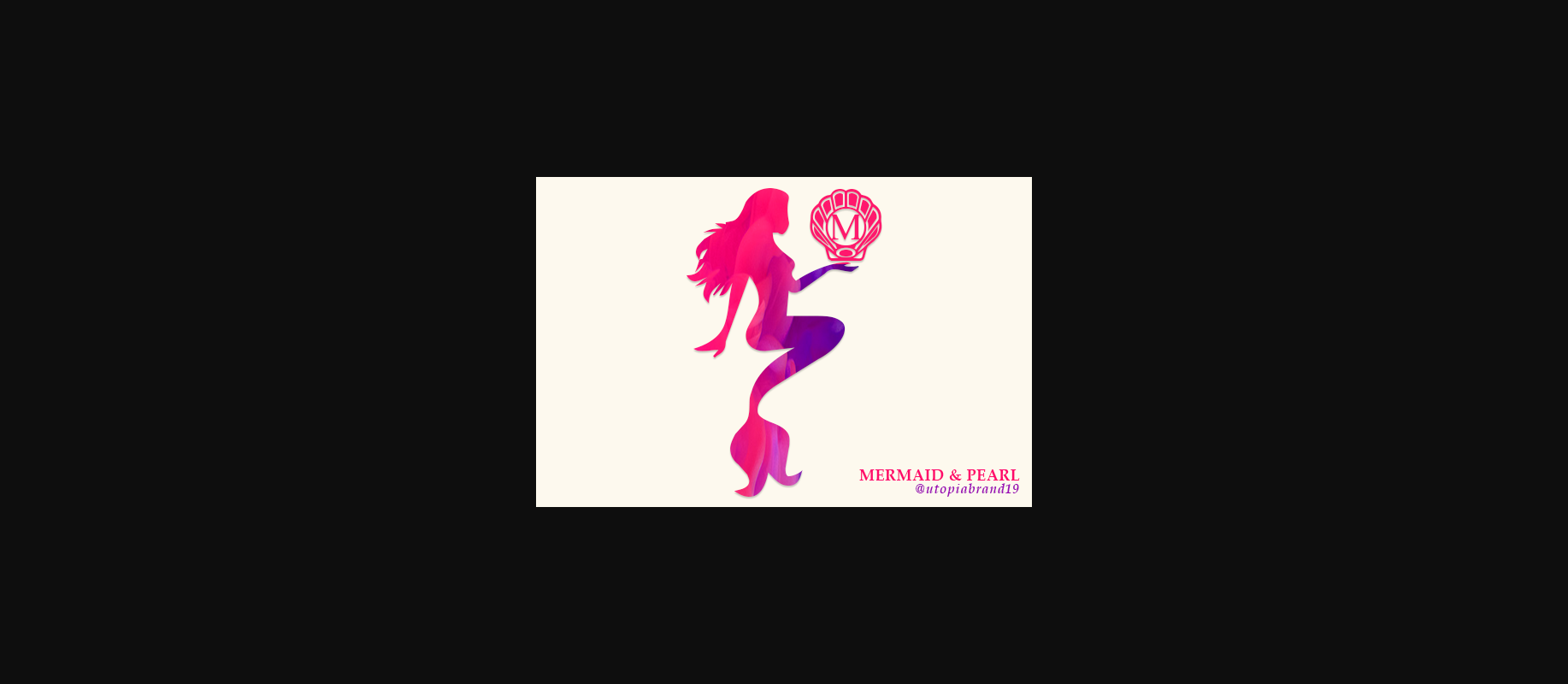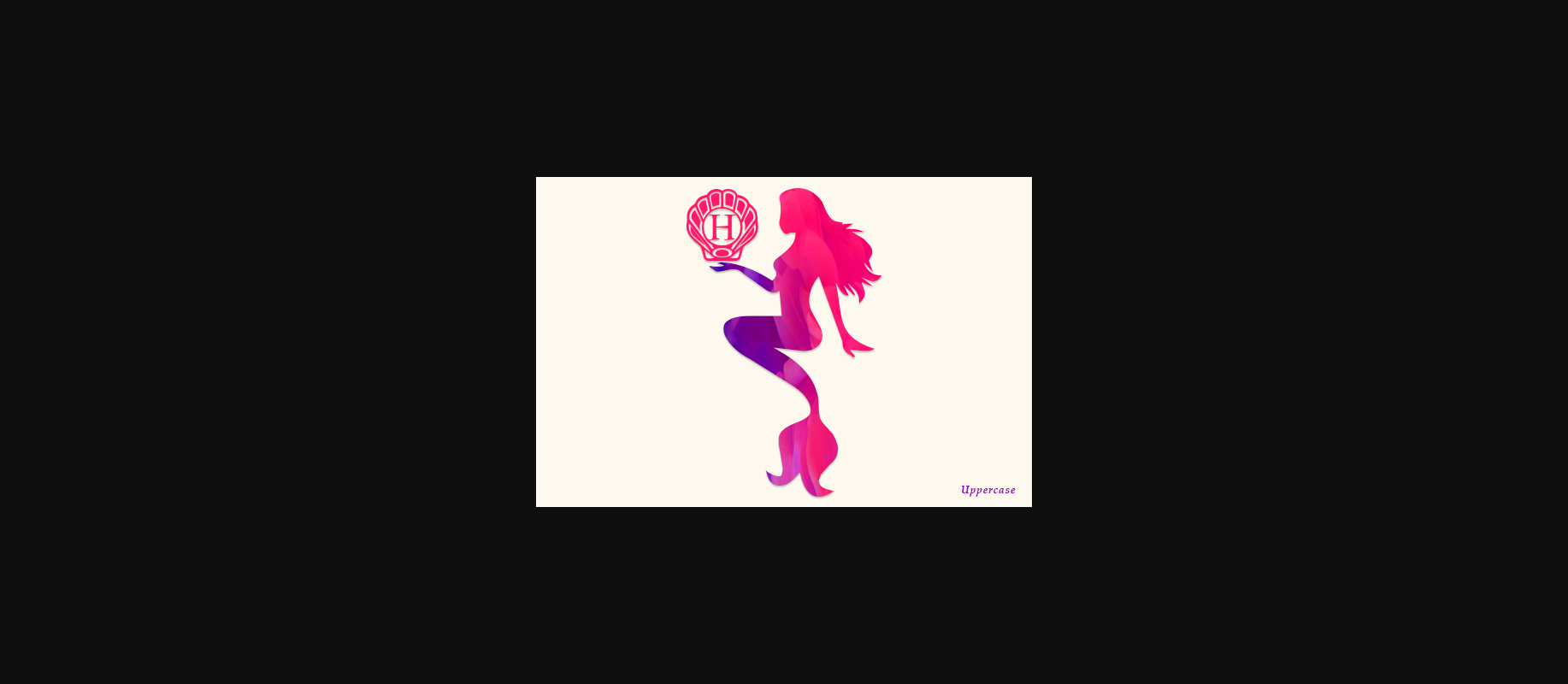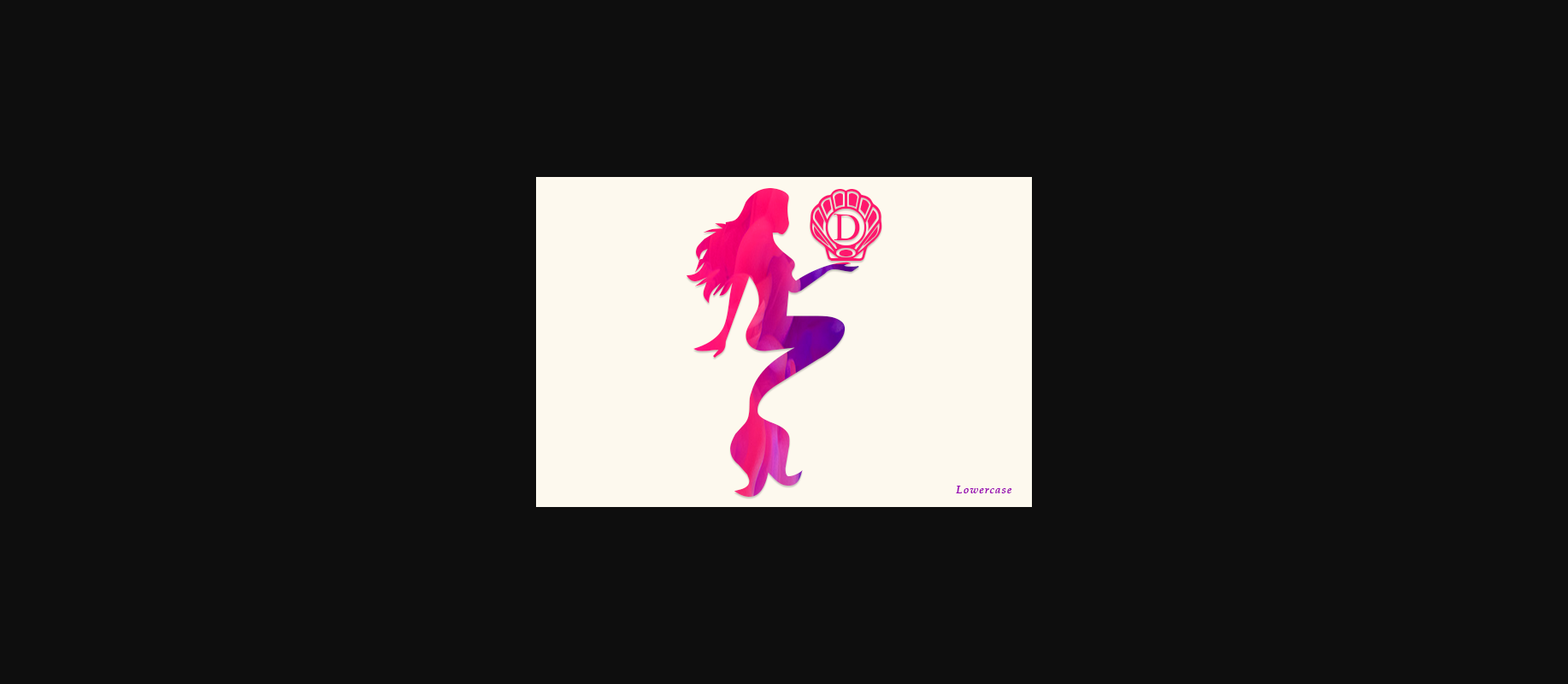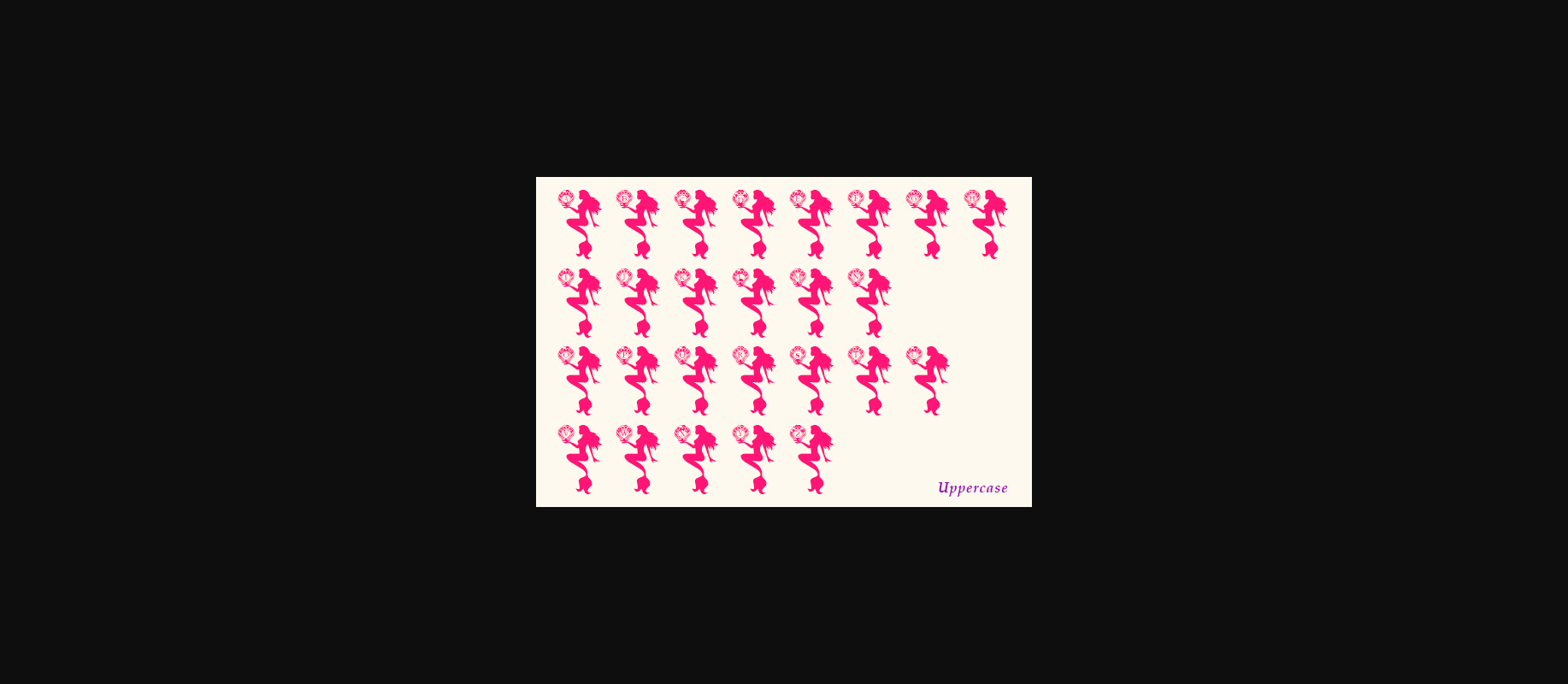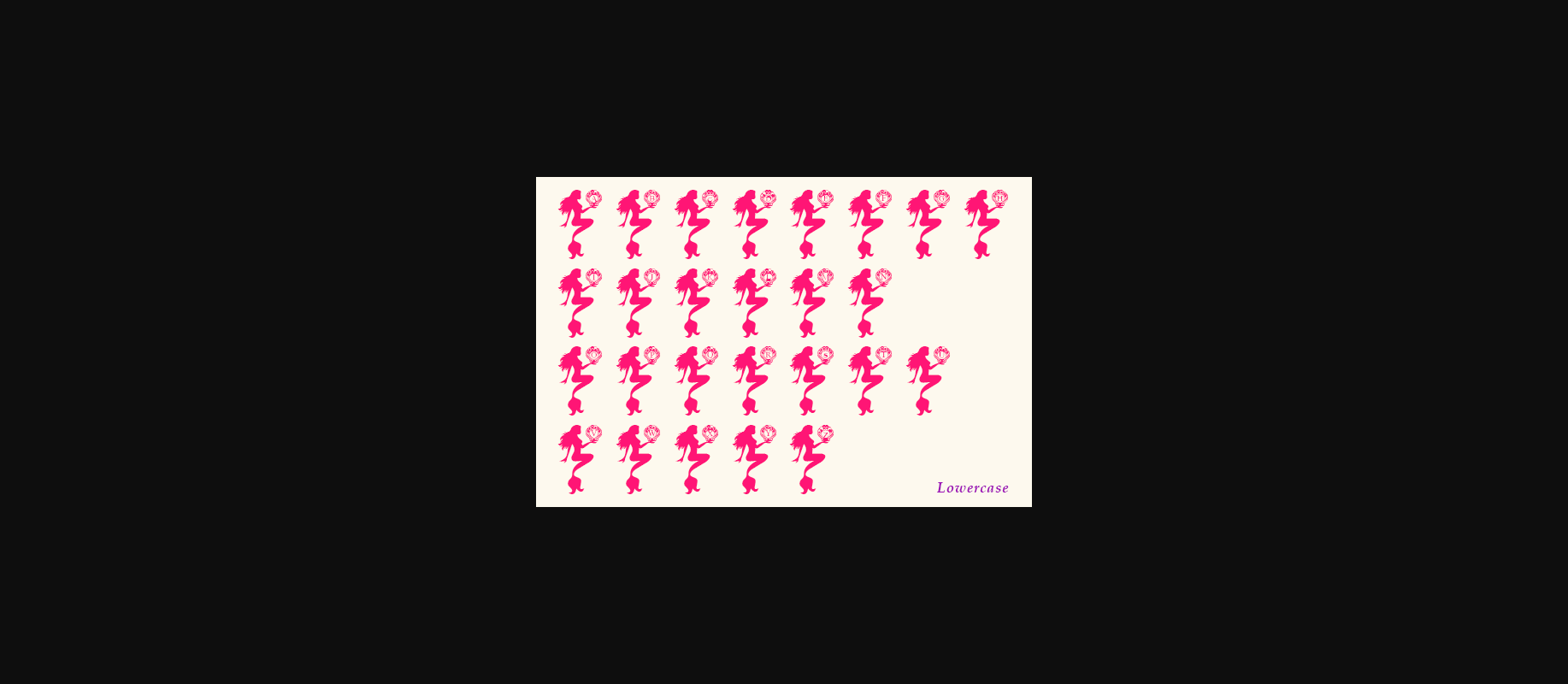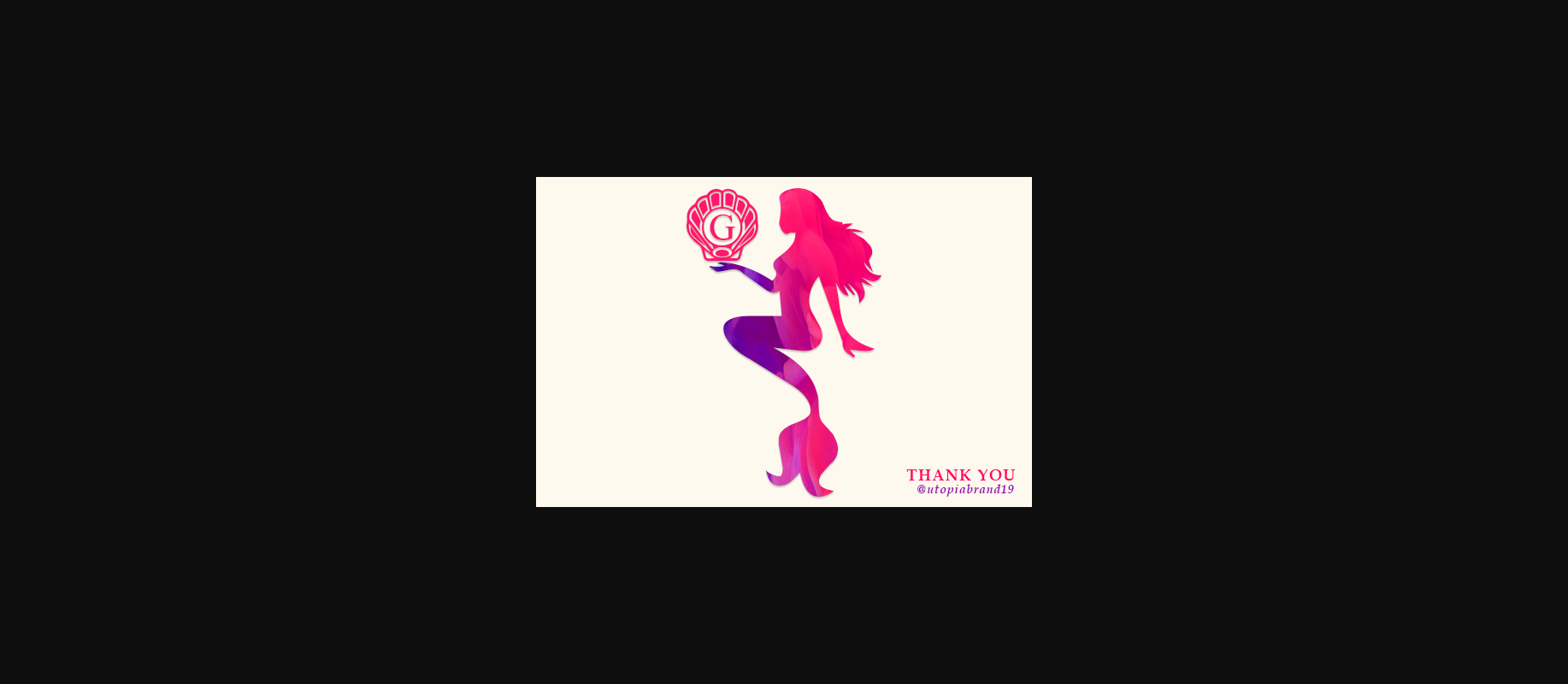
Mermaid and Pearl Font
About Mermaid and Pearl Font
Mermaid and Pearl is a charming decorative font. Fall in love with its authentic feel and use it to create gorgeous invitations, beautiful stationary art, eye-catching social media posts, and cute greeting cards.